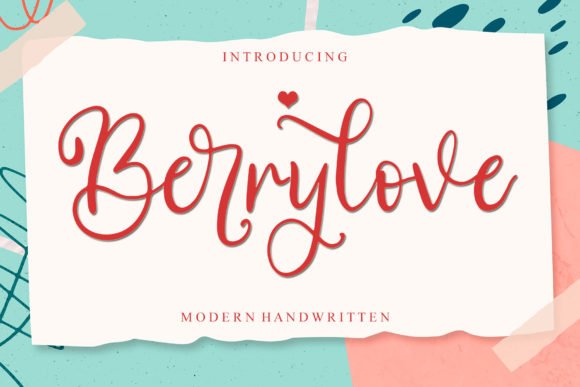
Discover the Joy of Typography with Berrylove Font
Have you ever been stuck on a design project, desperately searching for the perfect font to bring your vision to life? I know I have. And then, like a breath of fresh air, I stumbled upon Berrylove Font – a delightful script font that has been a game-changer for my creative process.
Berrylove Font is a charming, playful script font designed to add a touch of whimsy to your designs. With its PUA-encoded glyphs and swashes, you can easily access the full range of characters and create truly unique designs. Whether you’re a seasoned designer or just starting out, Berrylove Font is a valuable addition to your toolkit, offering endless possibilities for creative expression.
Berrylove Font Key Features
- Unique Characteristics: Berrylove Font features a distinctive, hand-drawn style with a mix of bold and delicate lines, creating a unique visual identity for any project.
Designer Review: Berrylove Font
Overall, I think Berrylove Font is a lovely addition to any design project. The font has a whimsical, hand-drawn feel that’s perfect for creating a sense of playfulness and friendliness.
Here are some of the things I think work well:
- ✨ Unique style: The hand-drawn feel of the font makes it stand out from more generic fonts.
- ✨ Friendly tone: The font’s playful style makes it perfect for designs that need to convey a sense of approachability and warmth.
- ✨ High-quality design: The font is well-designed and has a high level of detail, making it look professional and polished.
However, I do think there are some limitations:
- ⚠️ Limited font weights: The font only comes in a few weights, which can make it difficult to use in certain situations where a lighter or bolder font is needed.
- ⚠️ Limited language support: The font may not support certain languages or characters, which can limit its use in global design projects.
Overall, I think Berrylove Font is a great choice for designs that need to convey a sense of playfulness and friendliness. However, it may not be the best choice for projects that require a wide range of font weights or language support.
Common Use Cases for Berrylove Font
The Berrylove Font is ideal for:
- Children’s products and packaging.
- Playful and creative marketing materials.
Alternatives to Berrylove Font
Great Vibes is a modern, elegant script font that works well for branding, logos, and headlines. It has a similar feel to Berrylove Font but with a more refined and sophisticated look. Use Great Vibes for designs that require a touch of luxury and sophistication.
Crimson Text is a serif font that offers a unique blend of elegance and playfulness. It’s a great alternative to Berrylove Font for designs that require a more classic and timeless look. Use Crimson Text for body text, headings, and titles where a sophisticated yet approachable tone is needed.